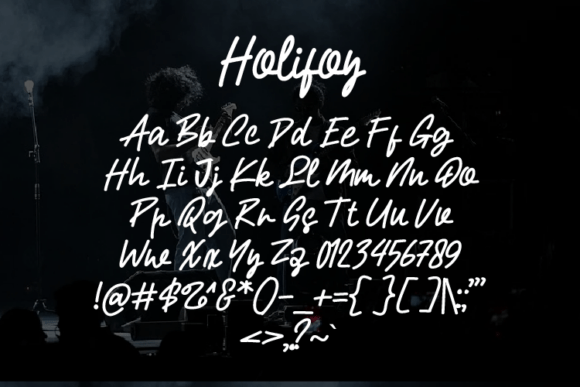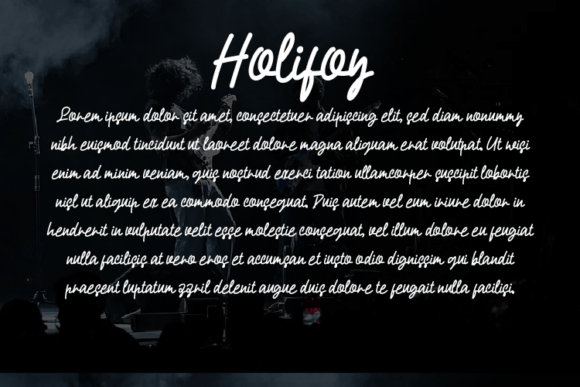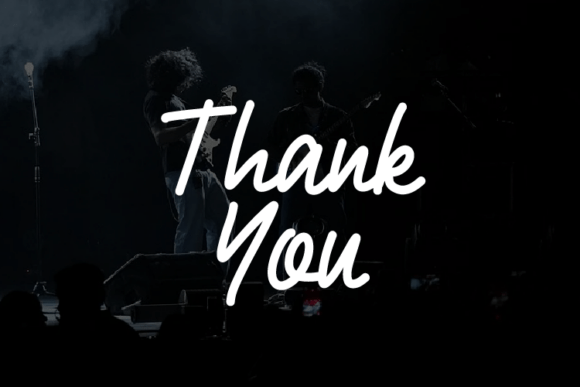
Enter the Holifoy Font, a modern and elegant typeface designed to deliver flexibility and exceptional readability across a wide range of media. With its superior cross-platform compatibility thanks to the .otf (OpenType Font) file format, the Holifoy Font is an ideal choice for designers working in Adobe Creative Suite, Microsoft Office, and other design software.
Whether you’re a seasoned pro or just starting out, the Holifoy Font is a valuable addition to your design toolkit. Its versatility and excellent readability make it the perfect choice for any project, from logos and branding to marketing materials and more.
Holifoy Font Key Features
- Unique Characteristics: The Holifoy Font features a unique, elegant design with distinctive letterforms and a subtle flair, making it suitable for use in high-end branding and design projects.
Holifoy Font Review
Overall, I’d say the Holifoy Font is a solid choice for designers, but it has its strengths and weaknesses. Let’s dive in!
- Unique design: The Holifoy Font has a distinctive look that sets it apart from more common fonts. Its elegant script style is perfect for adding a touch of sophistication to your designs.
- Readability: Despite its decorative nature, the font is surprisingly readable, making it suitable for a wide range of applications, from body text to headings.
- Professional feel: The Holifoy Font exudes a sense of professionalism, making it an excellent choice for corporate materials, resumes, and other formal documents.
- Limited character set: The font’s character set is somewhat limited, which may cause issues when working with non-English languages or special characters.
- Lack of flexibility: The Holifoy Font is quite rigid in its design, which can make it difficult to use in situations where you need a more adaptable font.
Overall, I’d recommend the Holifoy Font to designers who need a unique, professional-looking font for their projects. However, be aware of its limitations and choose it wisely.
Getting the Most Out of Holifoy Font
To get the most out of the Holifoy Font, use it for:
1. Display headings and titles.
2. Creating a vintage or distressed look.
3. Adding a touch of elegance to your designs.
The Holifoy Font is commonly used for:
1. Branding and logos.
2. Social media graphics.
3. Wedding invitations and stationery.
Alternatives to Holifoy Font
Montserrat is a modern sans-serif font designed for digital use. It’s perfect for titles, headings, and body text in websites and applications. Montserrat is more geometric and clean compared to Holifoy Font, making it ideal for modern and minimalist designs.
Comparison: Montserrat is more geometric and has a more contemporary feel compared to Holifoy Font, which has a more traditional and elegant feel.
Abril Fatface is a beautiful, elegant serif font ideal for titles, headings, and quotes. It’s perfect for designs that require a touch of sophistication and luxury. Abril Fatface is more ornate and decorative compared to Holifoy Font, making it ideal for high-end designs.